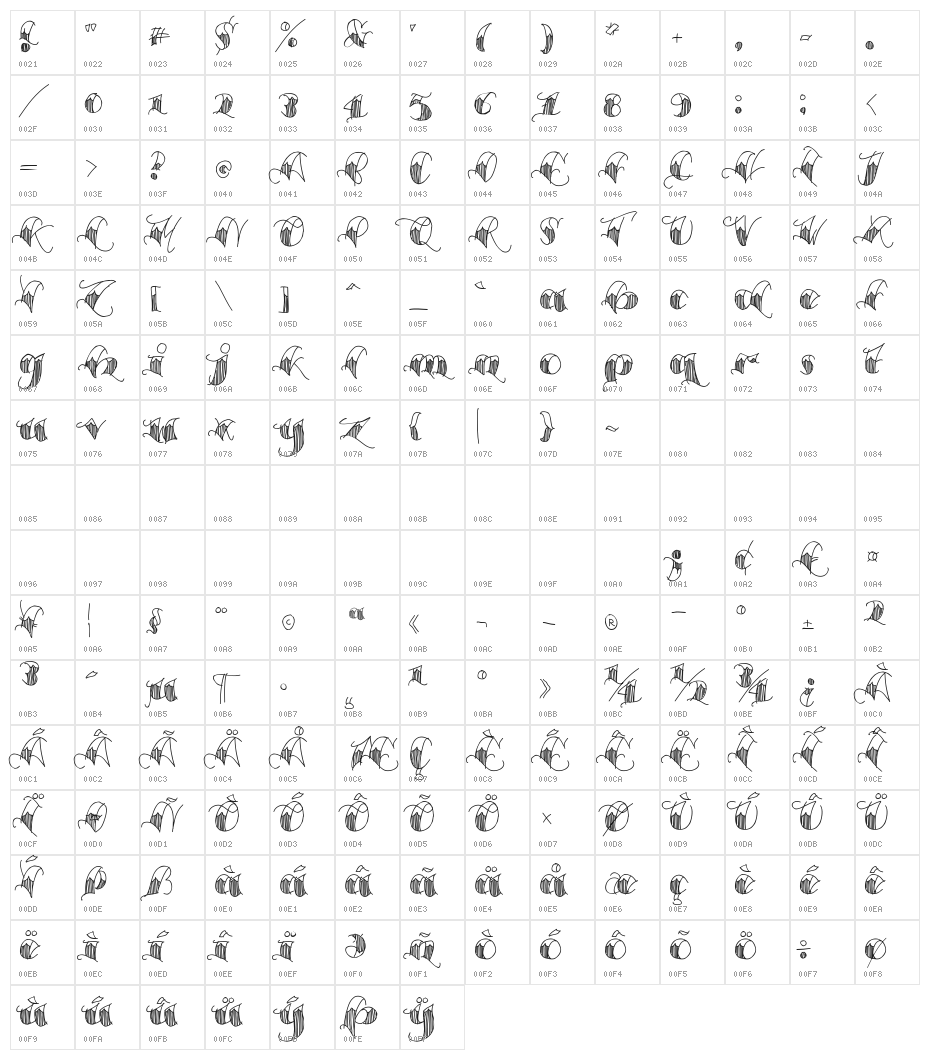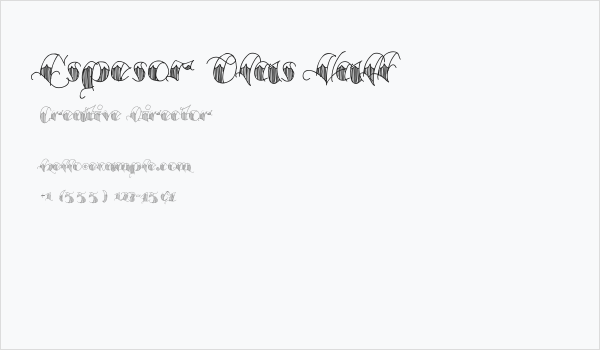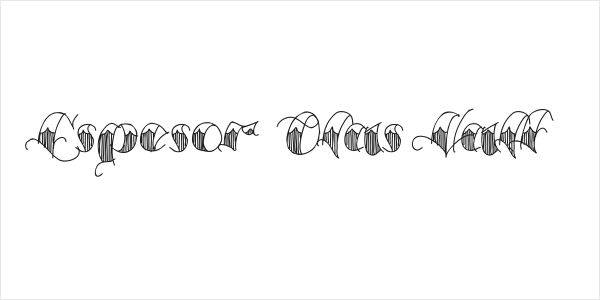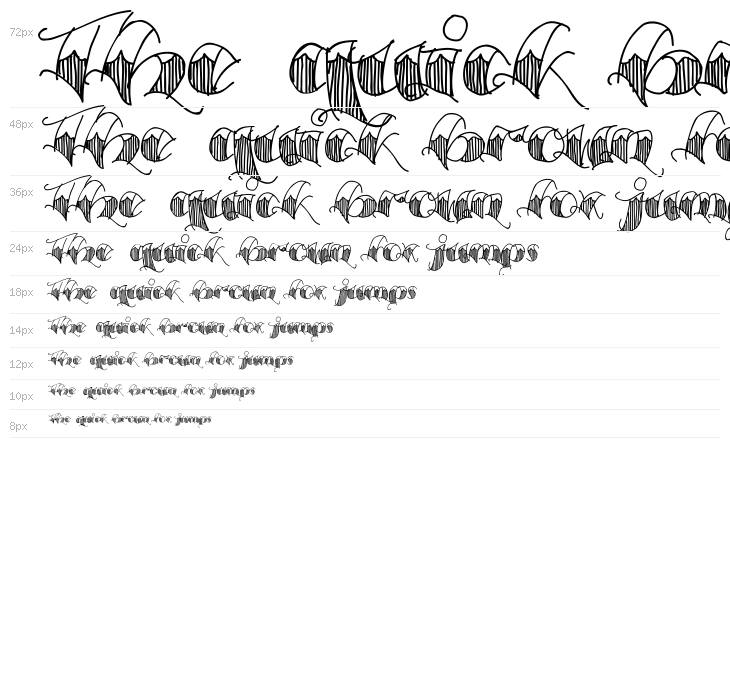
Espesor Olas Half Font
Espesor Olas Half Description
This font features a highly decorative and artistic style, characterized by its intricate and flowing script. The letters are adorned with elaborate swirls and loops, giving it a dynamic and fluid appearance. The strokes are bold and expressive, with a unique striped pattern that adds texture and depth. The uppercase and lowercase letters maintain a consistent style, while the numbers and special characters are equally ornate, ensuring a cohesive look across all elements. This font exudes a sense of elegance and sophistication, making it ideal for creative and artistic projects.
| Use Case | Headlines, Logos, Artistic projects |
| Proposed Projects | Ideal for wedding invitations, artistic posters, branding for luxury products, and decorative headlines. |